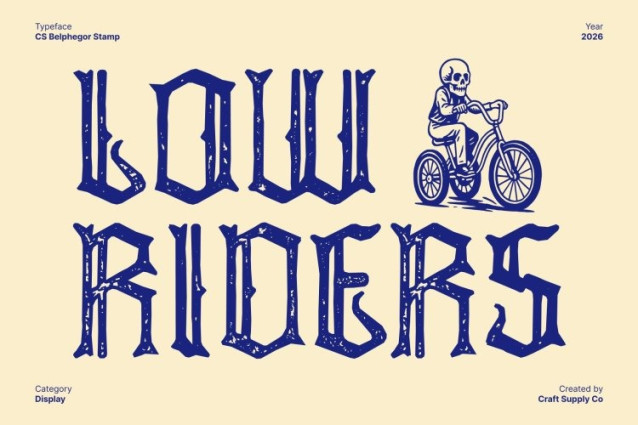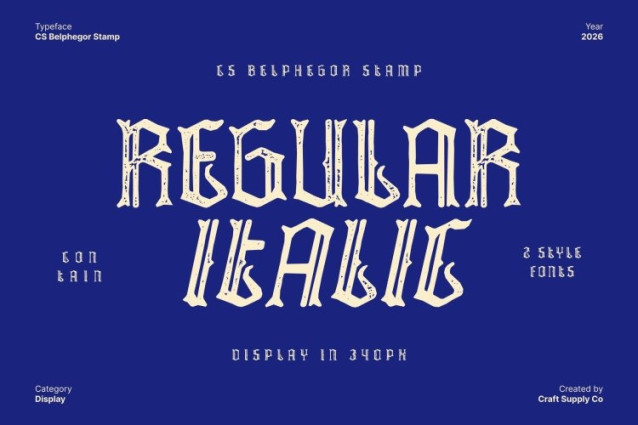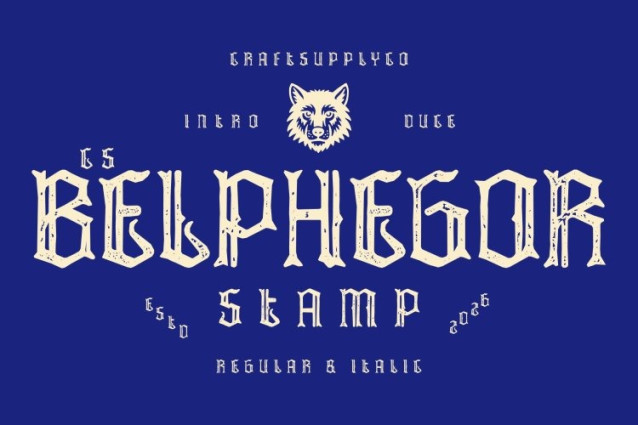
CS Belphegor Stamp Font
CS Belphegor Stamp Font This is a modern gothic display font defined by thin, sleek lines that merge classic dark elegance with contemporary minimalism. Its refined, slender construction delivers a subtle yet powerful presence. Enhanced with a stamp effect, the font gains a textured, slightly worn surface that adds vintage depth and an old-print character to its modern form.
Elegant Linework with Vintage Gothic Character
Delicate strokes, sharp edges, and balanced proportions create a graceful silhouette that feels both mysterious and controlled. The stamped texture introduces gentle imperfections and tactile detail, softening the precision of the thin lines while enhancing their expressive quality. This combination makes the font ideal for high-end fashion branding, editorial layouts, book covers, and artistic visuals that require refinement with atmosphere.
Dark Elegance Blended with Aged Minimalism
Rooted in traditional gothic letterforms, embraces moody drama while maintaining clean, minimalist clarity. The stamp effect adds a sense of history and authenticity, revitalizing gothic aesthetics with an old-world print feel that contrasts beautifully with its modern structure.
Versatile for Stylish, Edgy, and Sophisticated Designs
Whether used in branding, packaging, posters, or digital media, this font delivers a refined yet enigmatic tone. Its fusion of thin gothic elegance, contemporary minimalism, and vintage stamped texture makes this font perfect for designs that seek timeless darkness, artistic depth, and a daring modern edge.